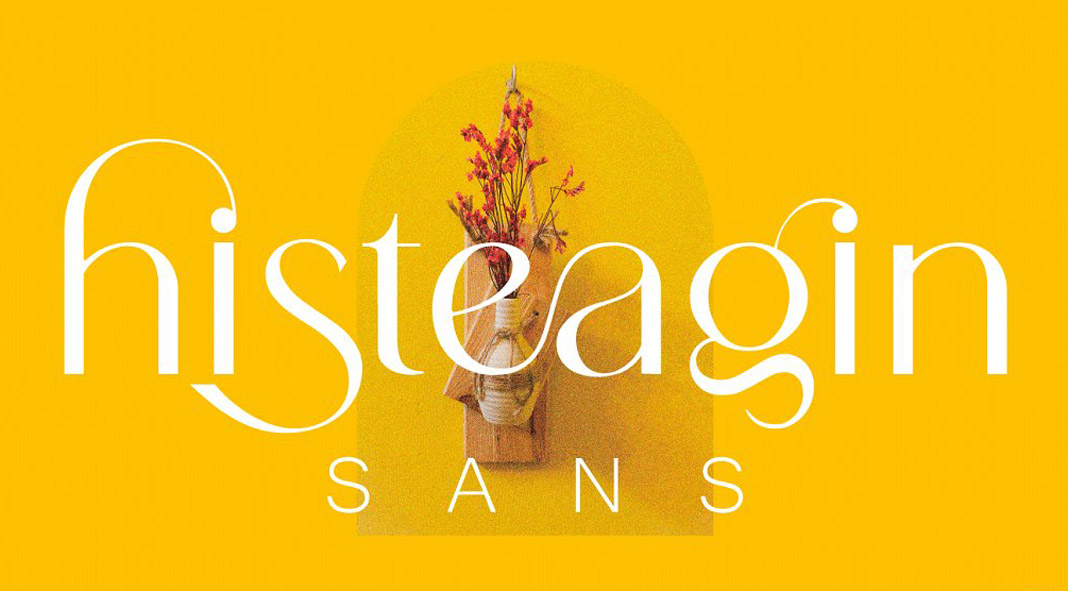
Download Histeagin Sans, a decorative display font from Yahya Type.
Foundry Yahya Type just published Histeagin Sans, a super stylish sans serif font with elegant curves. The decorative display font is equipped with plenty of alternative characters. Its extensive character set supports multiple languages. Histeagin Sans is well suited for various design projects such as branding, logos, wedding invitations, social media posts, advertisements, packaging, labels, etc.